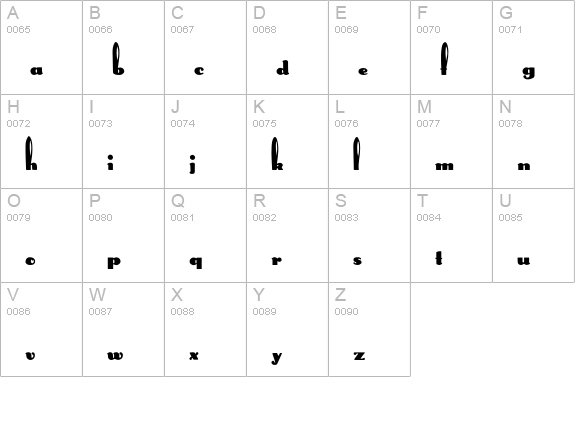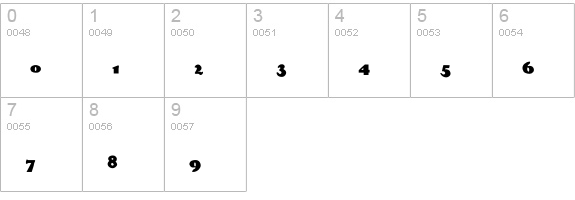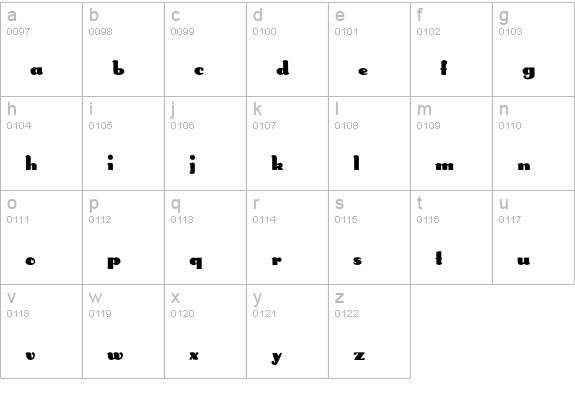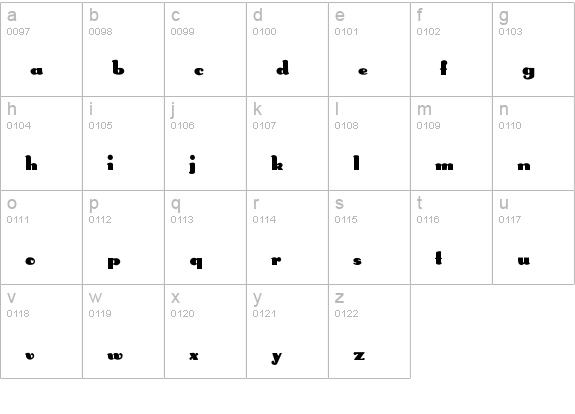
RabbitEars Font Details
RabbitEars font, with its playful and whimsical design, is the perfect choice for adding a touch of charm and personality to your creative projects. This delightful font features unique letterforms that are inspired by the elegance and grace of a rabbit's ears, adding a delightful touch to any text. Not only does RabbitEars font capture attention with its eye-catching design, but it also offers the added benefit of being freely available to download at FontsMarket.com. This means that you can easily access and use this font without any cost, making it an excellent option for budget-conscious designers and creatives. Whether you're designing a logo, creating a poster, or crafting an invitation, RabbitEars font adds a touch of whimsy and creativity to any project. Its smooth curves and charming details make it a versatile choice for a wide range of applications, from children's books to greeting cards. With RabbitEars font, you can effortlessly bring your designs to life and make them stand out from the crowd. So why wait? Download RabbitEars font today from FontsMarket.com and let your imagination run wild with this free and captivating typeface.